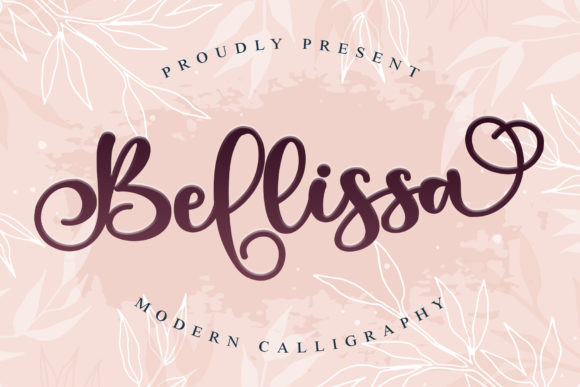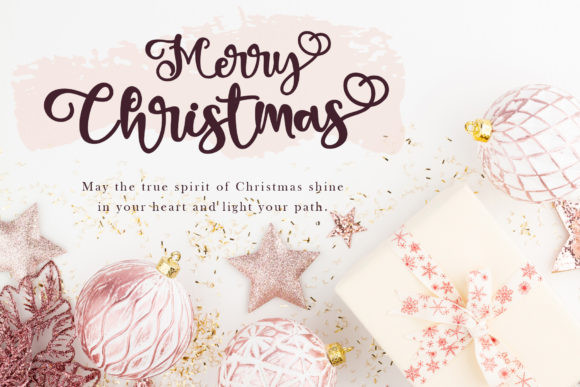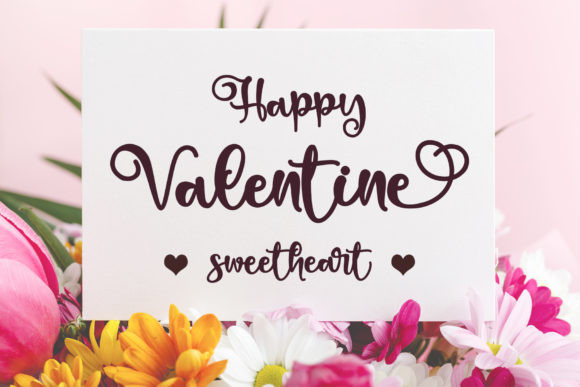
Bellissa Font
Bellissa is a beautiful handwritten font designed with an incredibly modern feel. This font is PUA encoded which means you can access all of the glyphs and swashes with ease! Bellissa is ideal for holiday-themed greeting cards and for any crafting project that requires a romantic touch.